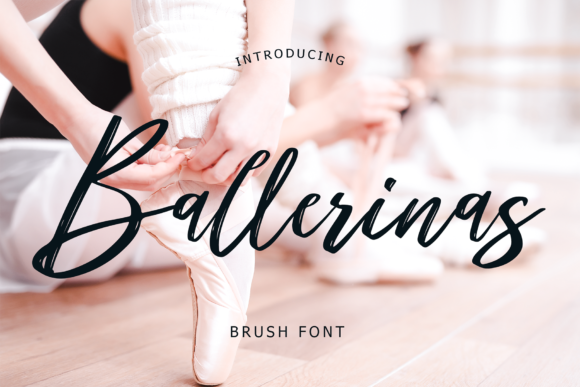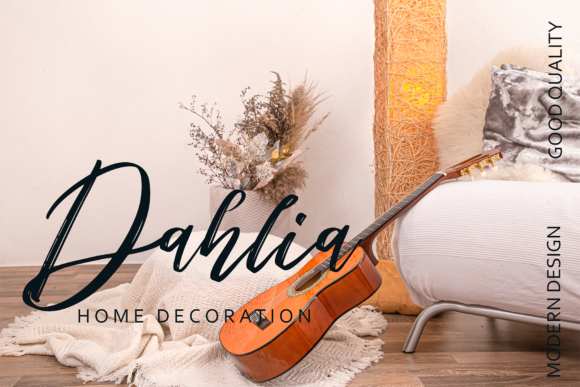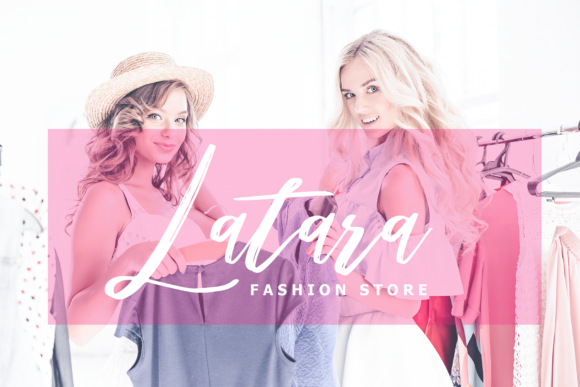
About Ballerinas Font
Introducing Ballerinas, an exquisite handwritten font that is destined to become your true favorite. This font seamlessly blends the elegance of calligraphy with a contemporary and fresh feel, making it a versatile and timeless choice for all your design projects. Prepare to be captivated by its charm and sophistication, and let Ballerinas elevate your creations to the highest levels of beauty and grace.
Ballerinas exudes a sense of grace and refinement, reminiscent of the intricate strokes of a skilled calligrapher’s pen. Each letter is a work of art, dancing effortlessly across the page. Whether you’re designing wedding invitations, love letters, or poetic quotes, Ballerinas adds a touch of class and romance that leaves a lasting impression.
Despite its calligraphic influences, Ballerinas also boasts a modern and fresh vibe, making it perfect for a wide range of contemporary design projects. From branding and logo design to social media graphics and digital artwork, this font effortlessly adapts to any style, complementing your vision with its sophisticated allure.
Fall in love with Ballerinas, and you’ll discover the joy of bringing your projects to new heights. Use it to create stunning typographic art, adding a touch of elegance and creativity to your living space. The font’s timeless beauty ensures that your artwork remains captivating for years to come.
As a centerpiece of your brand identity, Ballerinas leaves a memorable and distinctive mark. Its classy and contemporary fusion creates a logo that stands out from the crowd, reflecting your business’s sophistication and uniqueness.
In addition to its visual appeal, Ballerinas remains highly legible, making it a perfect choice for longer passages in books, magazines, and editorial designs. Its smooth flow ensures that your readers can immerse themselves in the written words without any distraction.
Ballerinas brings a touch of refinement to greeting cards, stationery, and any design project that deserves a handwritten touch. Its versatility knows no bounds, making it the go-to font for designers and creatives seeking to infuse their work with elegance and style.
In conclusion, Ballerinas is a font that exudes grace, sophistication, and contemporary charm. With its exquisite calligraphic influences and fresh feel, it becomes a true favorite for all your design projects. From wedding invitations to branding, typographic art, and more, Ballerinas elevates your creations to new heights of beauty and creativity. Embrace the charm of Ballerinas and watch as your projects blossom into timeless masterpieces that capture hearts and leave a lasting impact. Let your creativity soar in the enchanting embrace of Ballerinas, the exquisite handwritten font that redefines elegance.